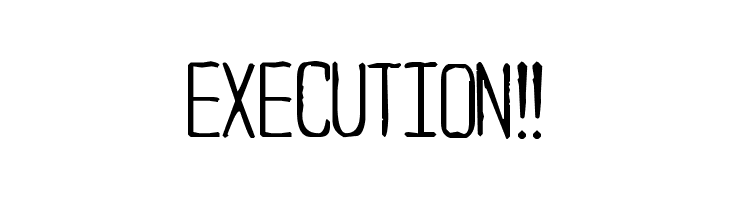
Pocus Primera Distorted 400 Condensed Font
- Font: Pocus Primera Distorted 400 Condensed
A hand-drawn, playful font with tall, narrow characters and a casual aesthetic.